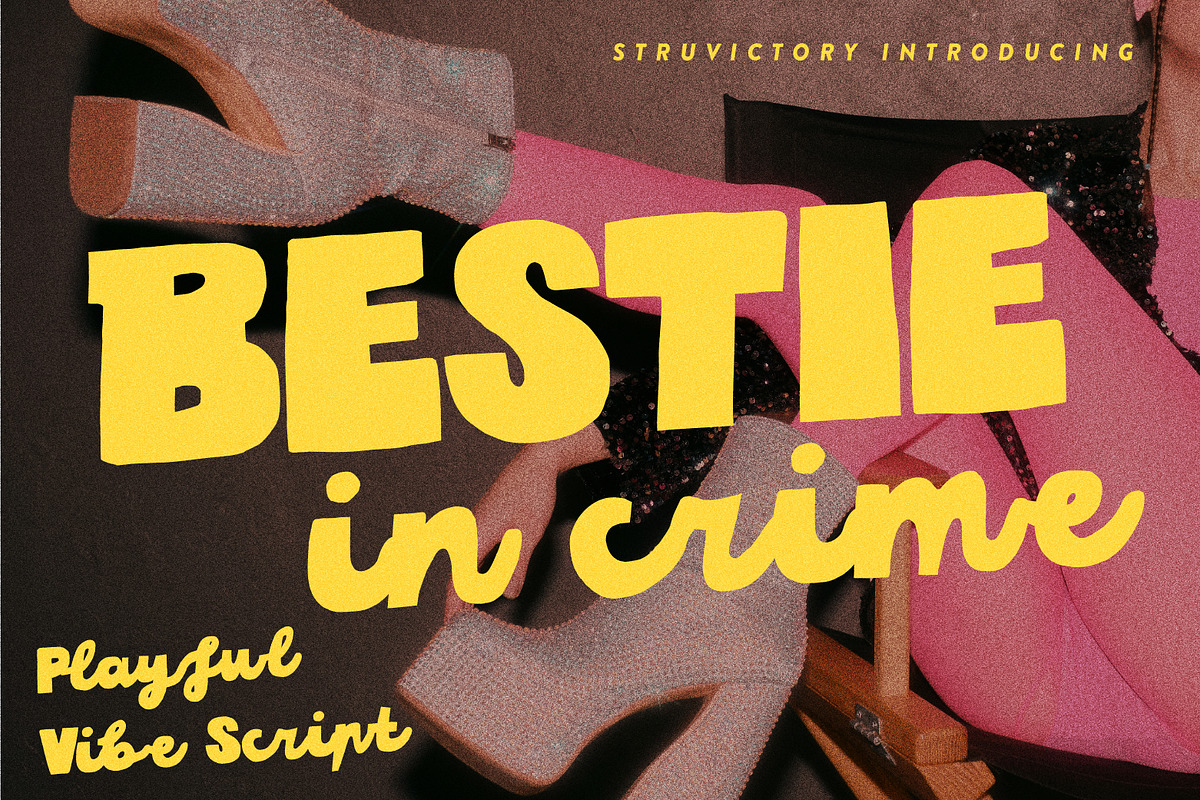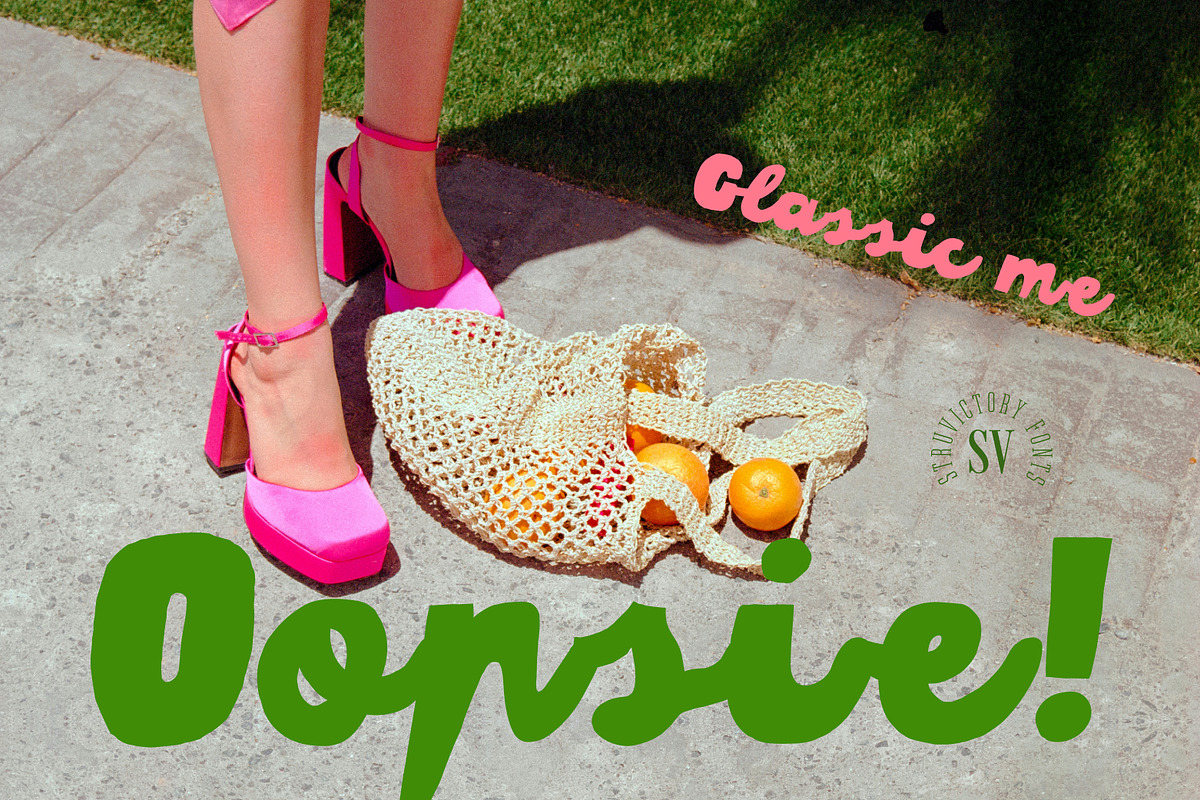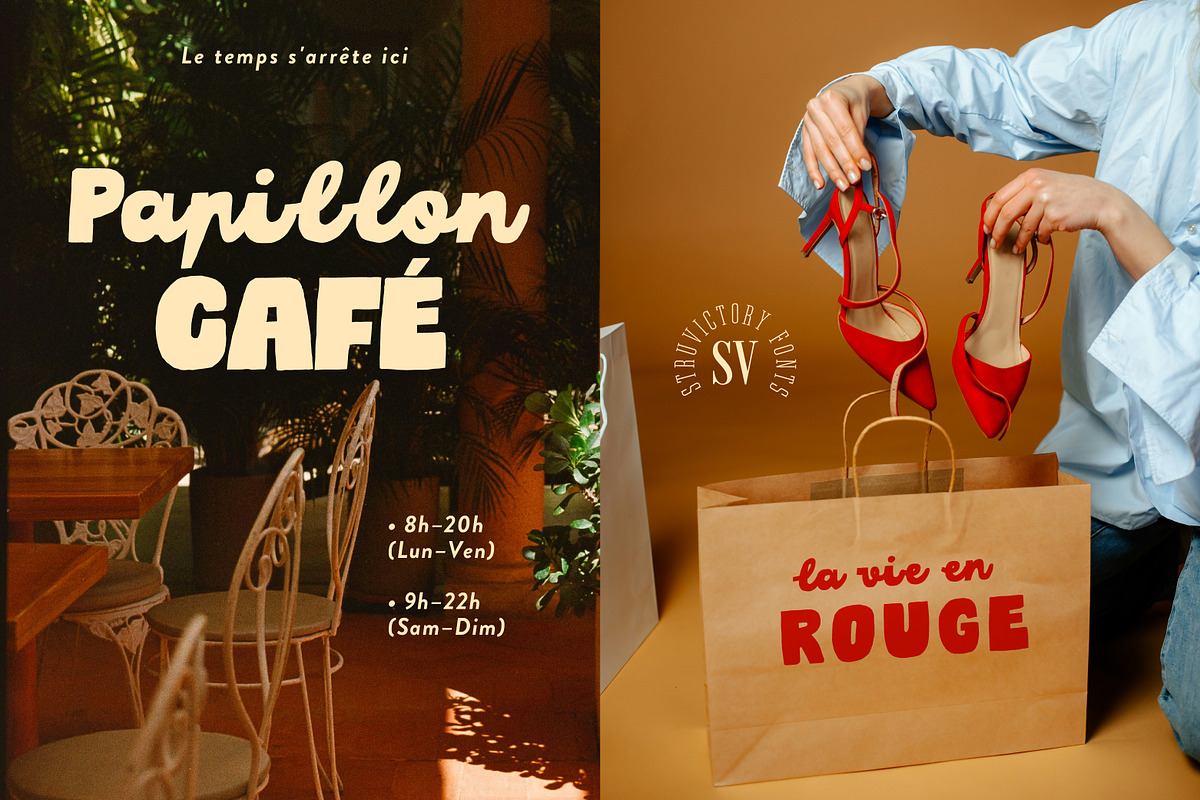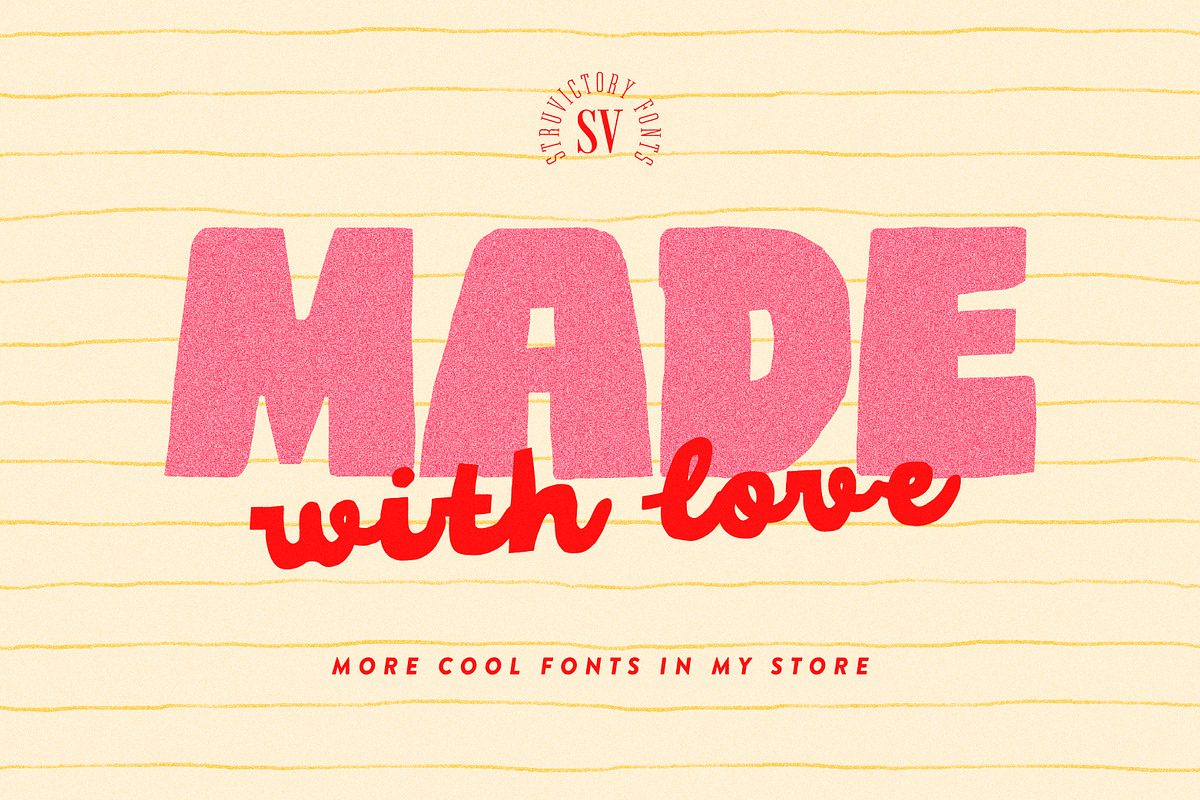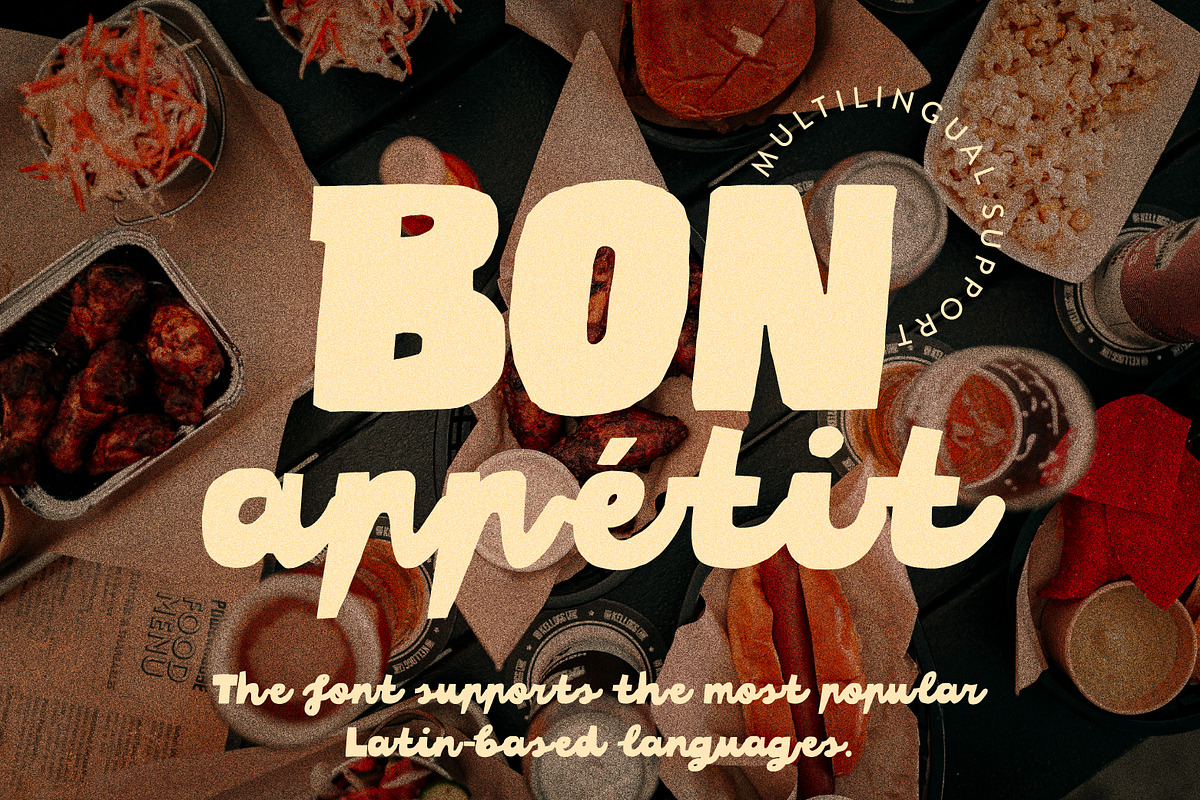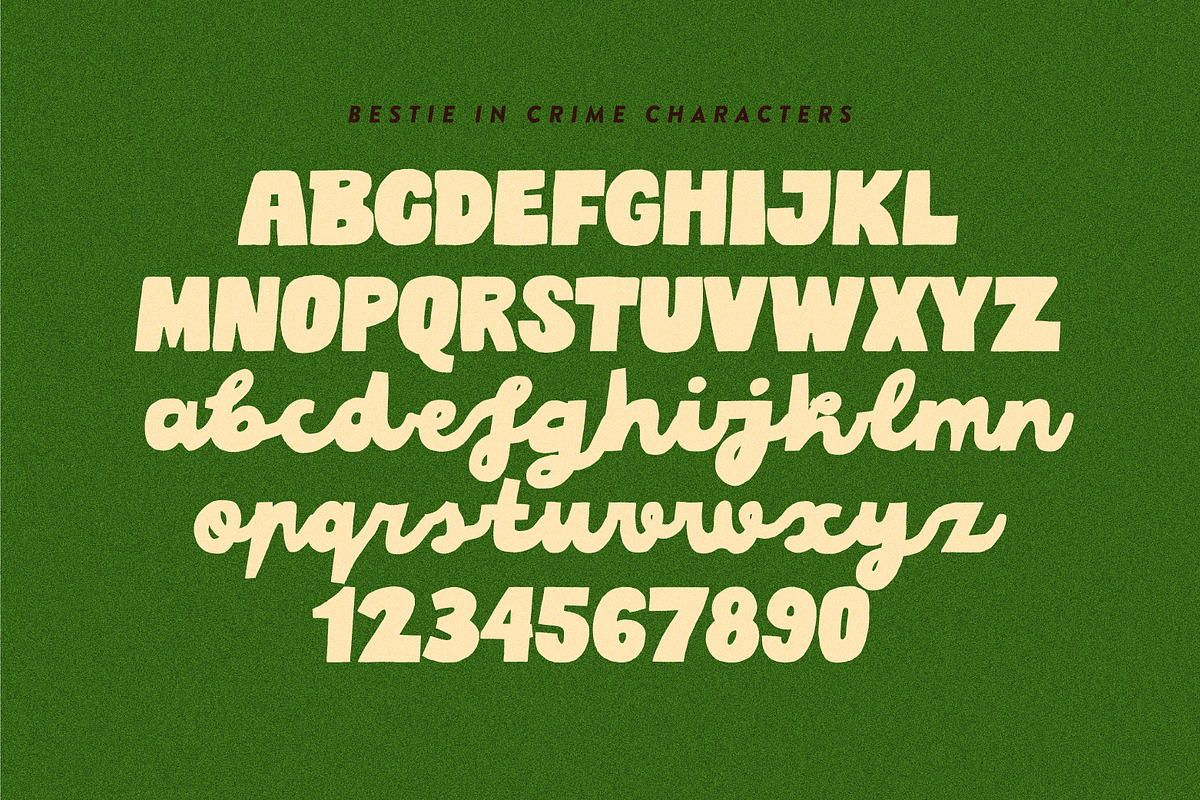
Bestie In Crime Playful Vibe Script
Bestie in Crime is a bold and playful font duo that pairs a handwritten sans serif uppercase with a lively, flowing lowercase script. Together they create an energetic contrast perfect for eye-catching designs with a fun, casual vibe. With its chunky forms and handwritten charm, this font works great for cafe menus, poster designs, event invites, product packaging, merch, and social media graphics. Whether you're designing something loud, cheeky, or sweet - Bestie in Crime brings the attitude.
Bestie In Crime Script supports the most popular latin-based languages, you can check the symbol you need by typing a couple of words in the font preview box.